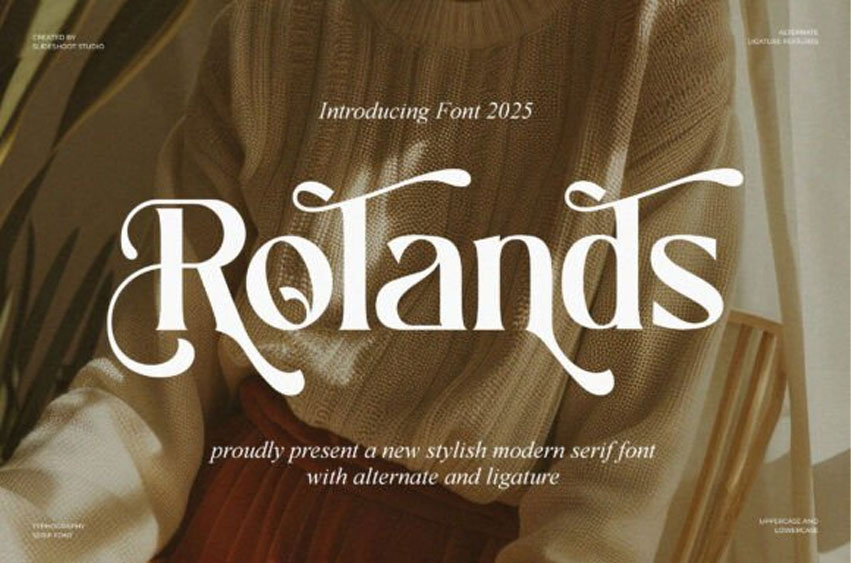
Rolands Font is a refined serif font with dramatic flair and artistic ligatures.
Perfect for editorial design, luxury branding, wedding invitations, and upscale packaging, this typeface pairs timeless sophistication with a creative twist.